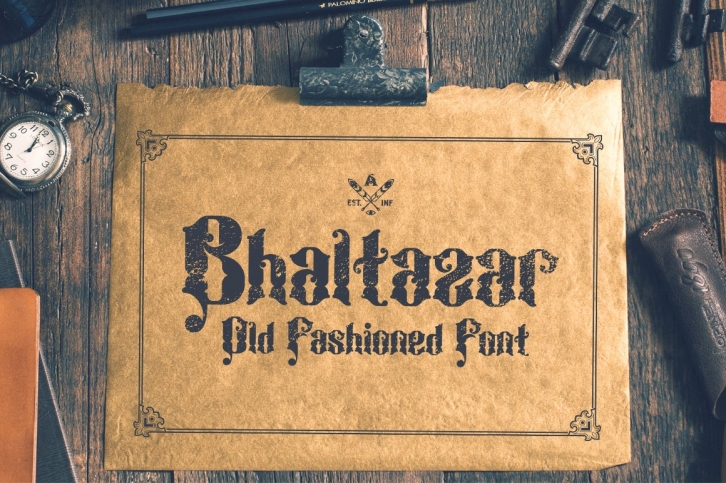
Bhaltazar is a old fashioned font design, its inspired by old victorian typography designs. it's perfect for your vintage designs, invitations, logotype, word arts, or another old fashion related designs.